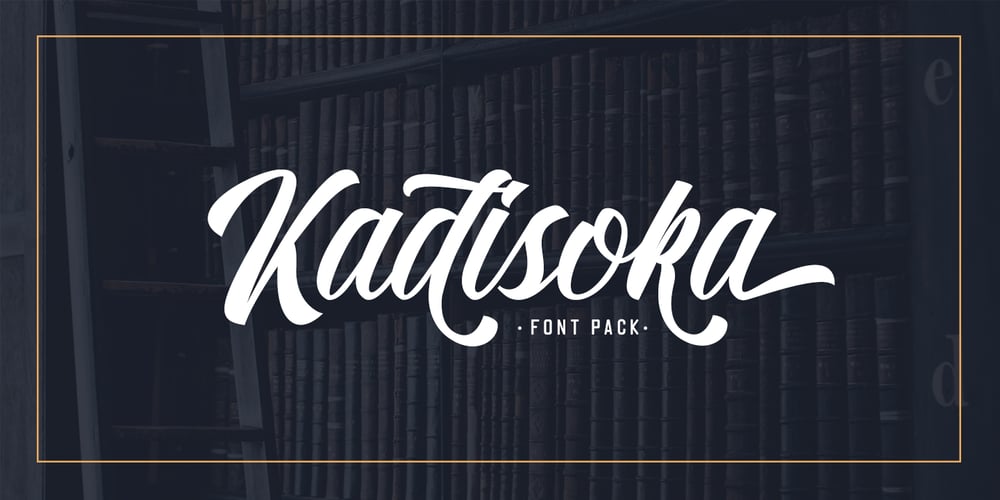
Kadisoka Font Family was designed by Hendry Juanda and published by Letterhend. Kadisoka contains 2 styles and family package options. KADISOKA SCRIPT The main font of this product with total 680++ glyphs! including open type features like ligatures, stylistic alternate, and lots of Stylistic Set. This typeface is based on manual handwriting which is very suitable for any design needs you have especially for script logotype project. KADISOKA SANS Neat and nice complemetary typeface which is perfect to combined with the kadisoka script font, or used as main font.